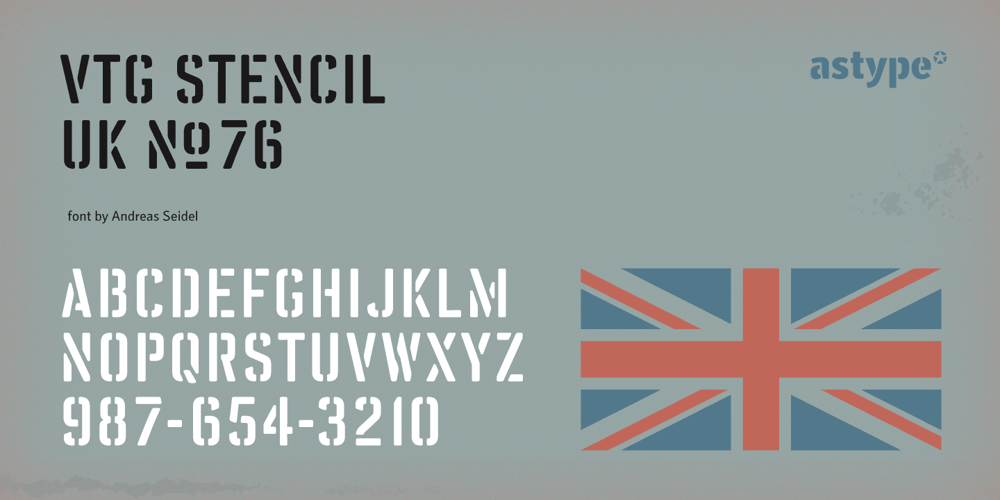
Vtg Stencil UK No. 76 Font Family was designed by Andreas Seidel and published by astype. Vtg Stencil UK No. 76 contains 4 styles and family package options. The Vtg Stencil series of fonts from astype are based on real world stencils. The UK No. 76 design was derived from authentic stencil plates from Great Britain. UK No.76 comes in four flavours – the Regular style and the Alt style with alternate and shorter forms of the letters M, W and the figure eight. Since summer 2015 both styles are now available in a Rough version with an extended glyph randomizer.>>> PDF Specimen <<<